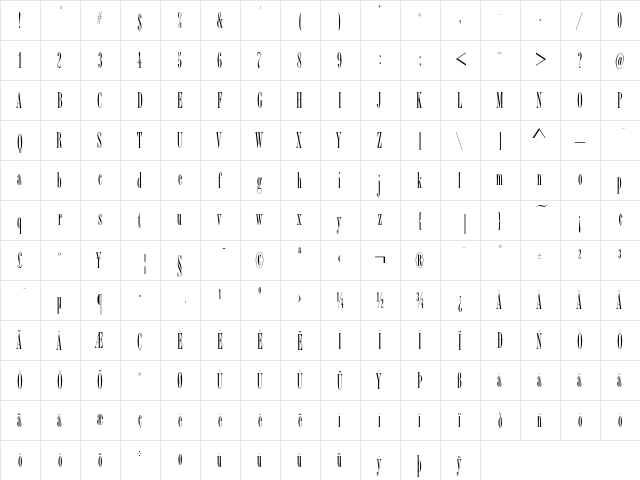
BordeauxICG Regular Font Preview
BordeauxICG Regular
Design Context for BordeauxICG Typeface
BordeauxICG is a composed and adaptable typeface that performs quietly and consistently across a wide range of design contexts.